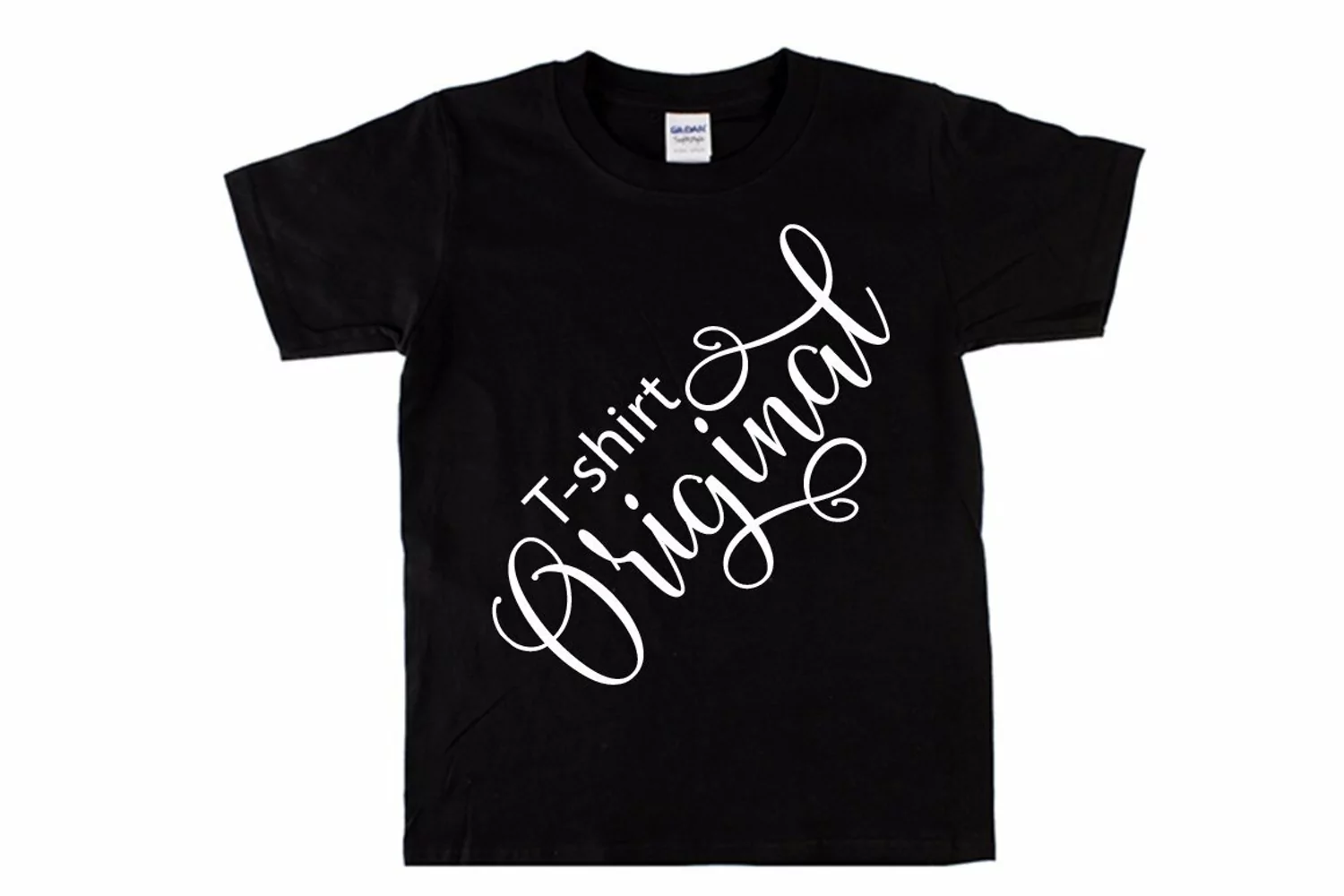
Web Font Angelia
Angelia is a font that made the hand by having the character up and down like a dancer. Angelia has a very unique style of calligraphy, it is very suitable for use in the work of modern design. combines from copperplate to contemporary typeface with a dancing baseline, modern and elegant touch. Angelia features 404 glyphs and alternate characters Include . including initial and terminal letters, alternates, and multiple language support.The Features of this fonts is;
Stylistic Alternates
Initial Alternates
Terminal Alternates
Stylistic sets